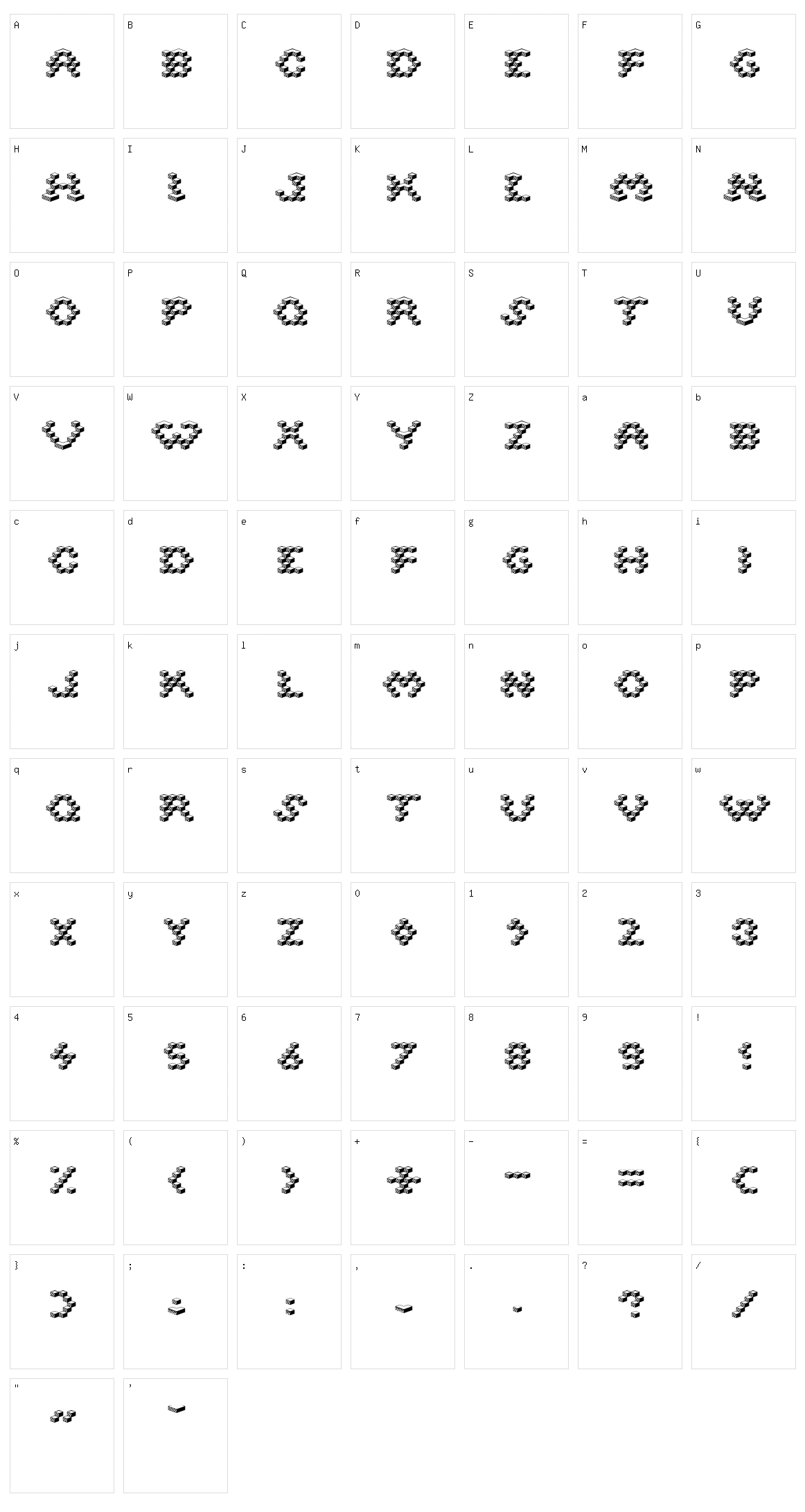
The free font Cube is carefully designed by Matteo Marco Milazzo, showcasing a thoughtful balance of creativity and usability and falls under the Square font style. When you download the ZIP file, it contains only 88.13 KB of font files, making it lightweight and quick to download. Please review the license details below to understand permitted usage and distribution rights. If license information is not available, we recommend using this font for personal projects only or contacting the author directly for commercial usage permissions.